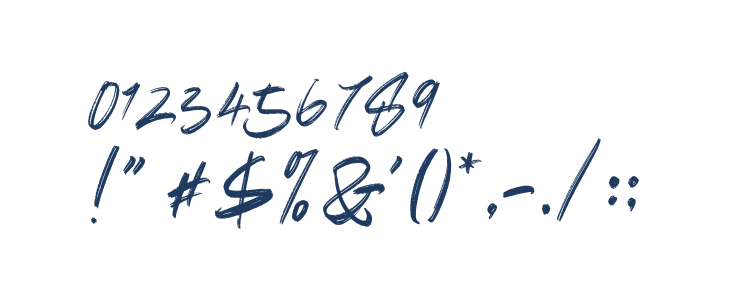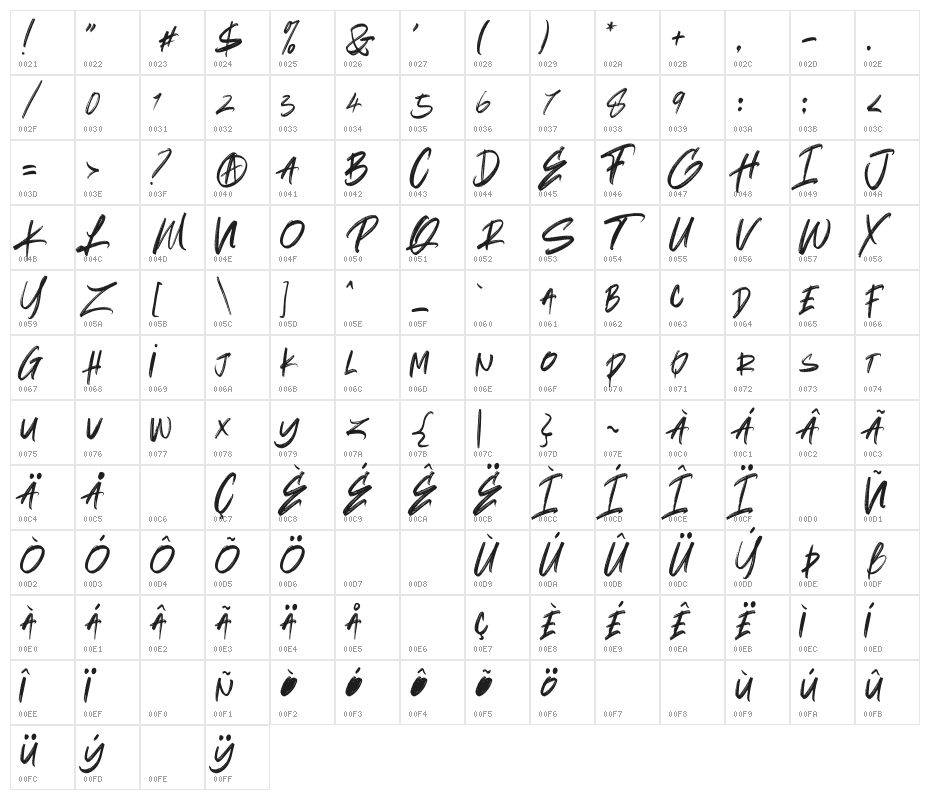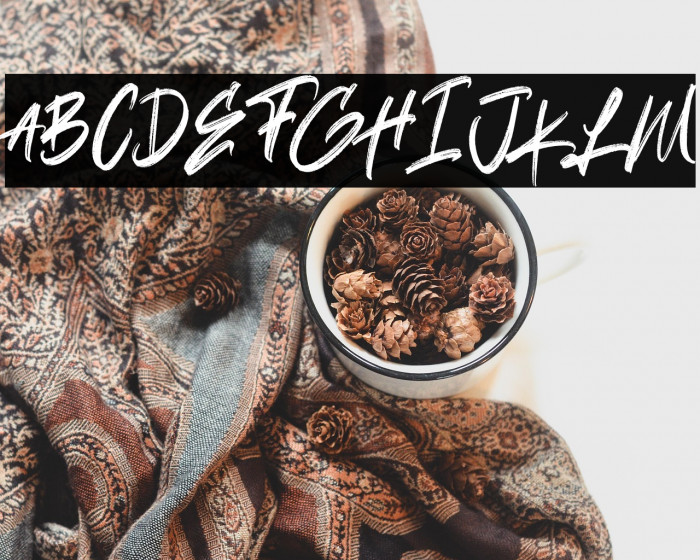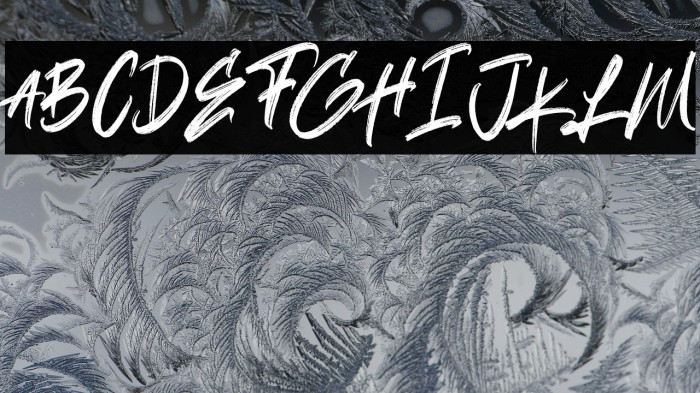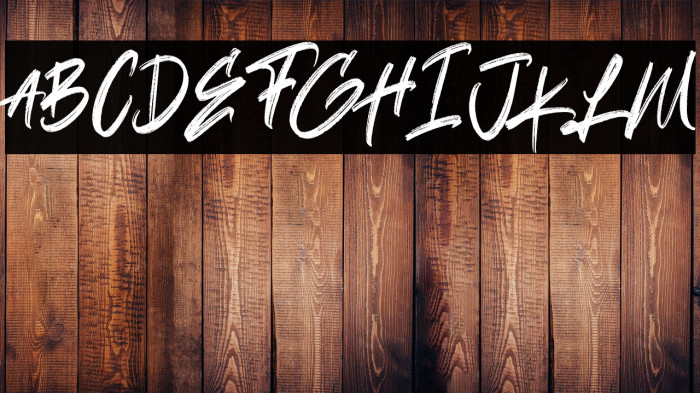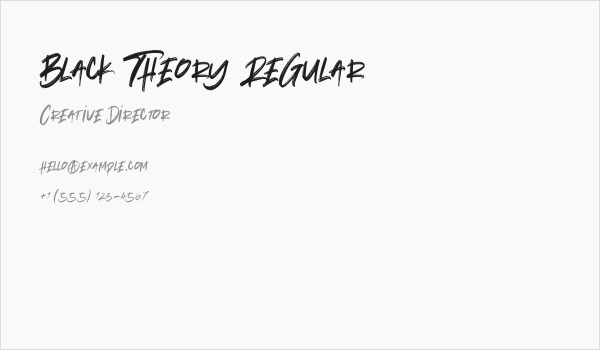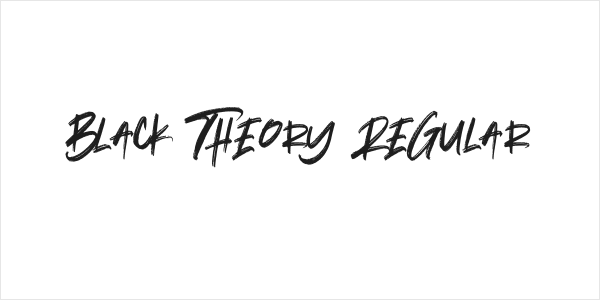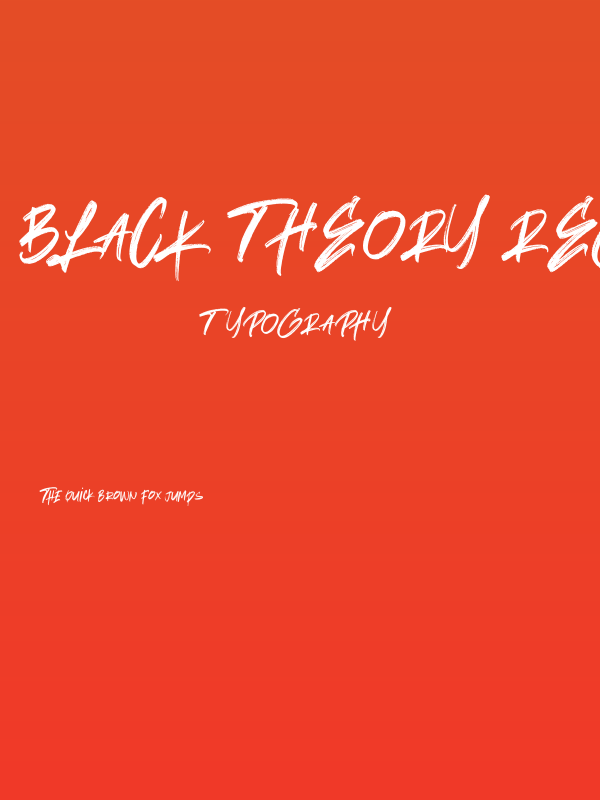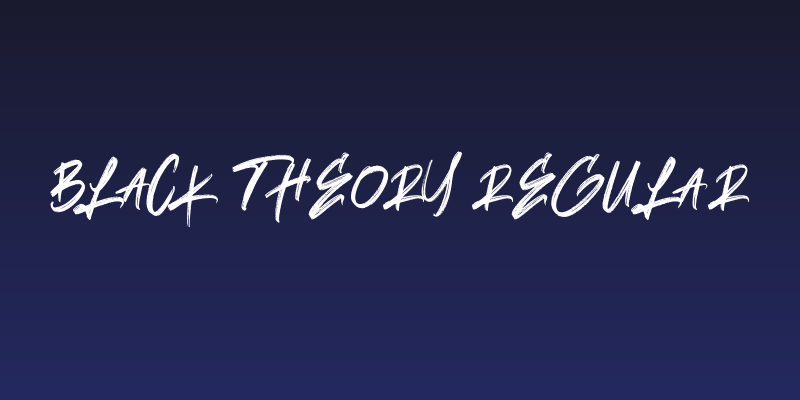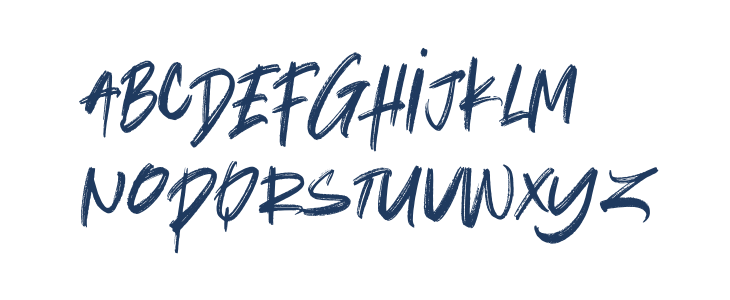
Black Theory Regular Font
Black Theory Regular Description
This font exudes a bold and dynamic handwritten style, characterized by its expressive and energetic strokes. The letters are crafted with a brush-like texture, giving them a raw and artistic feel. The uppercase and lowercase letters maintain a consistent flow, with some letters featuring unique flourishes that add to the overall aesthetic. The numbers and special characters are equally expressive, maintaining the same energetic style. This font is perfect for projects that require a personal and creative touch, such as branding, posters, and artistic designs.
| Use Case | Logos, Headlines, Artistic designs |
| Proposed Projects | Ideal for branding, posters, artistic designs, and any project needing a personal touch. |